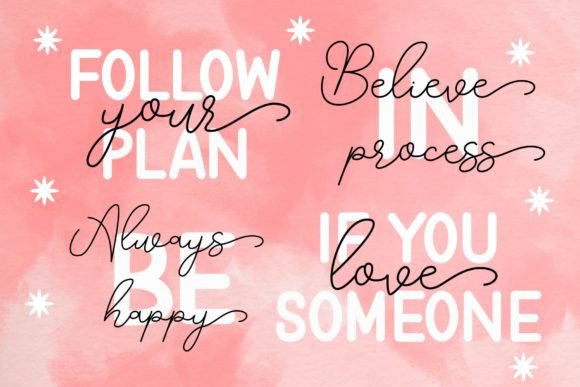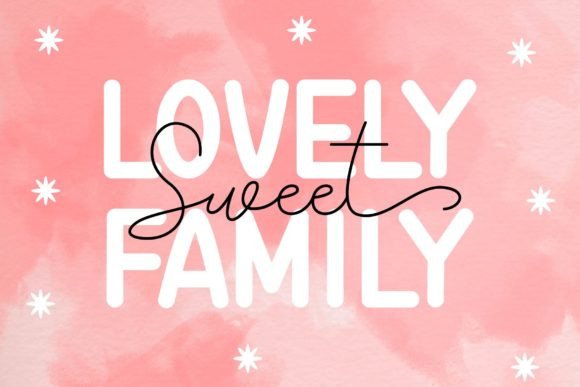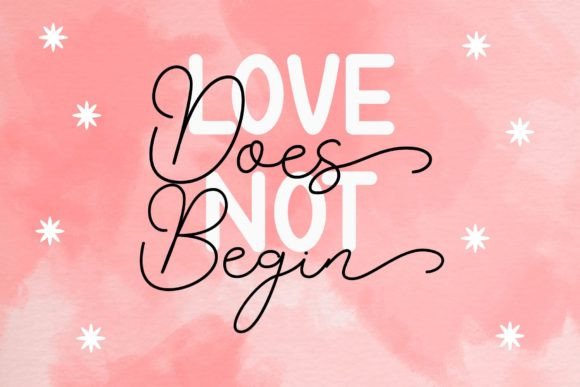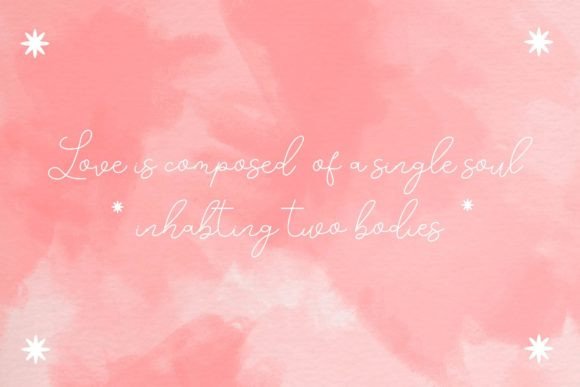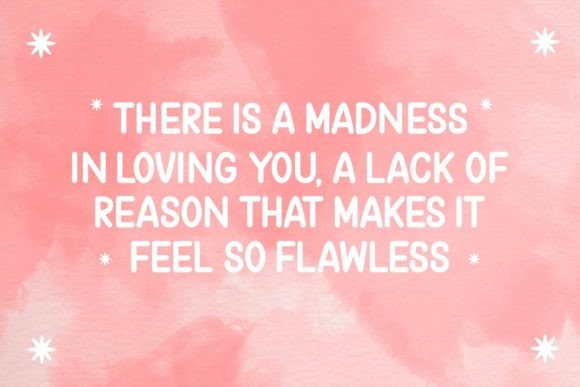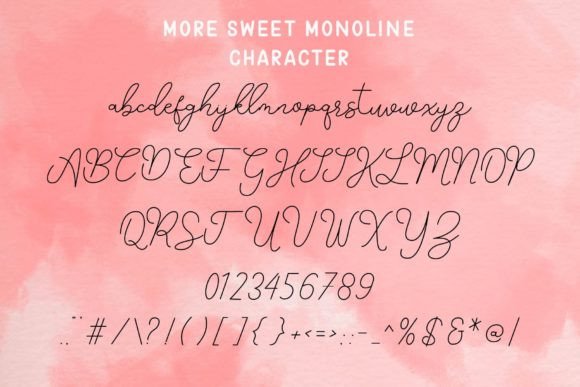
Introduction to More Sweet Font
More Sweet is a fun and playful font duo (script and display font).
This font was inspired by beautiful lovely sweet which makes it perfect for adorable and child-related products This font is PUA coded which means you can access all the glyphs and swashes easily.
Key Features of More Sweet Font